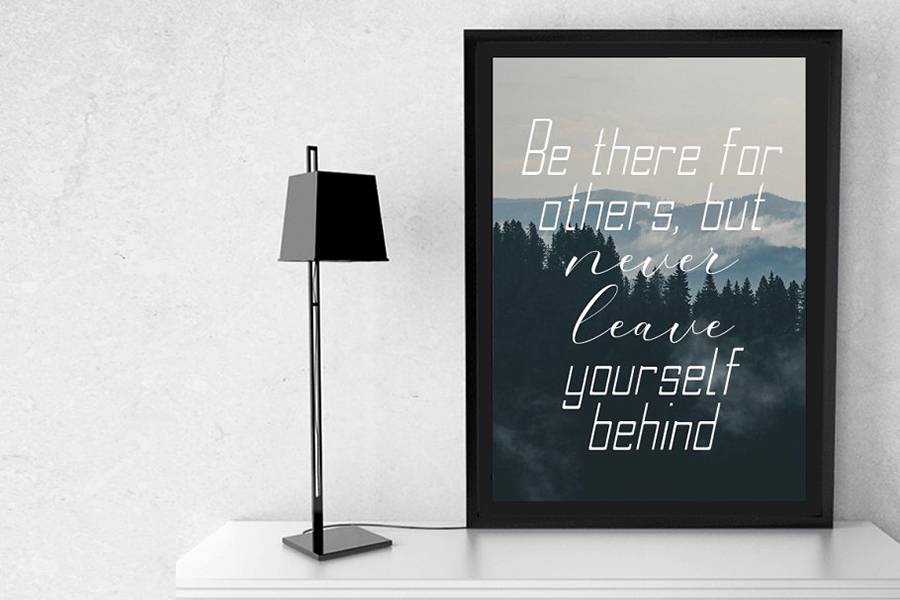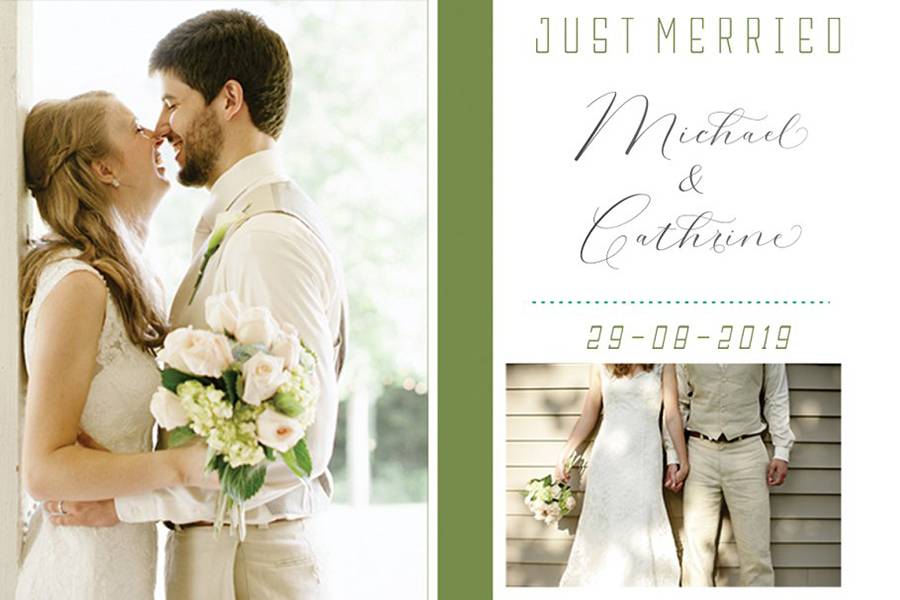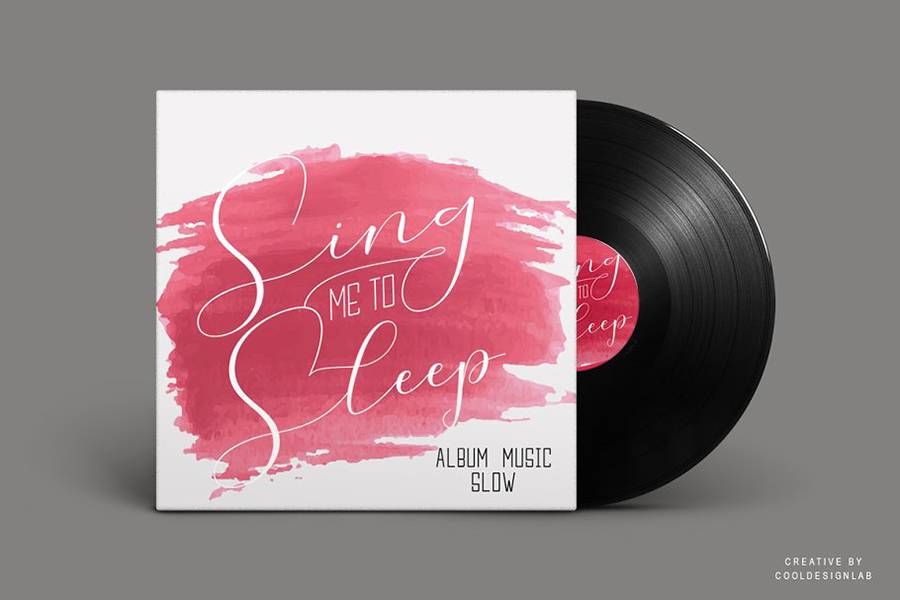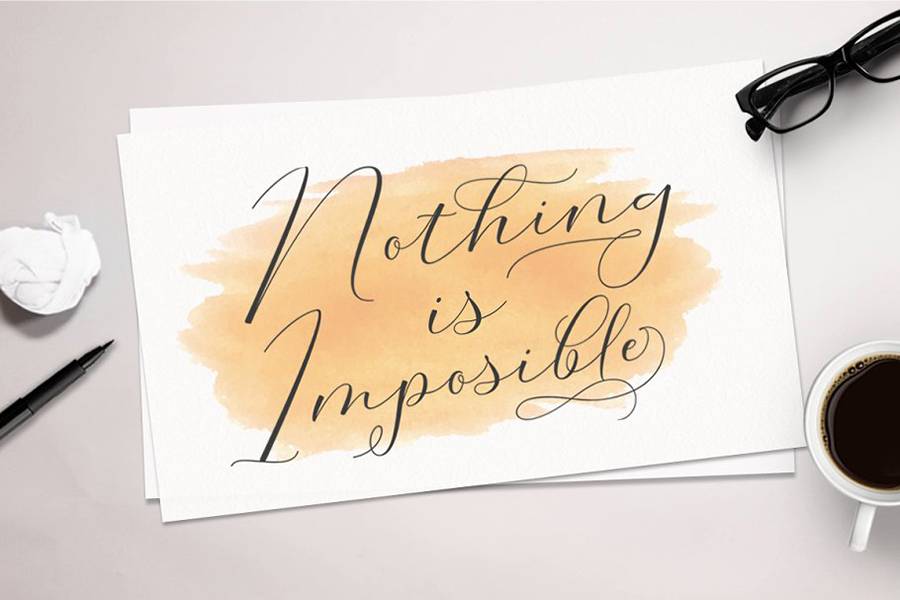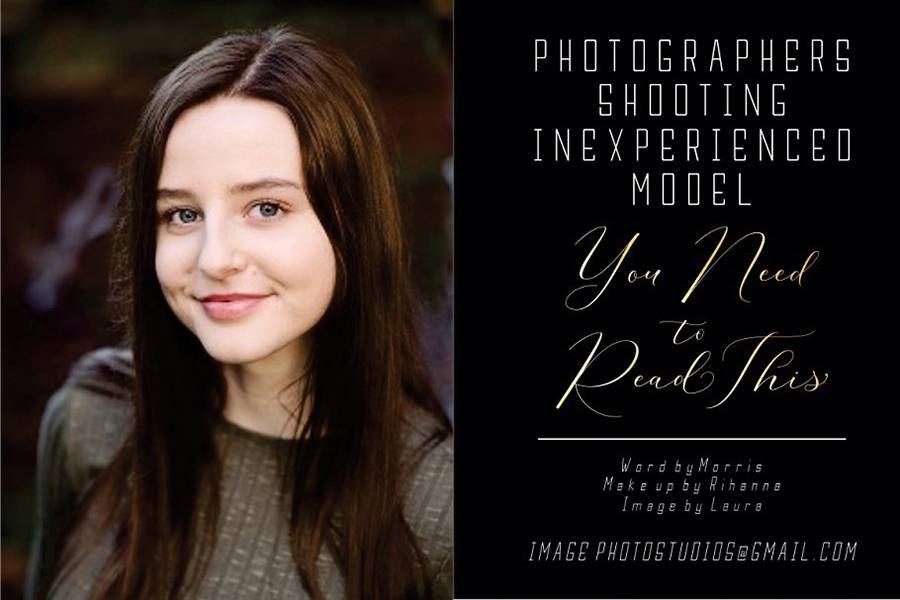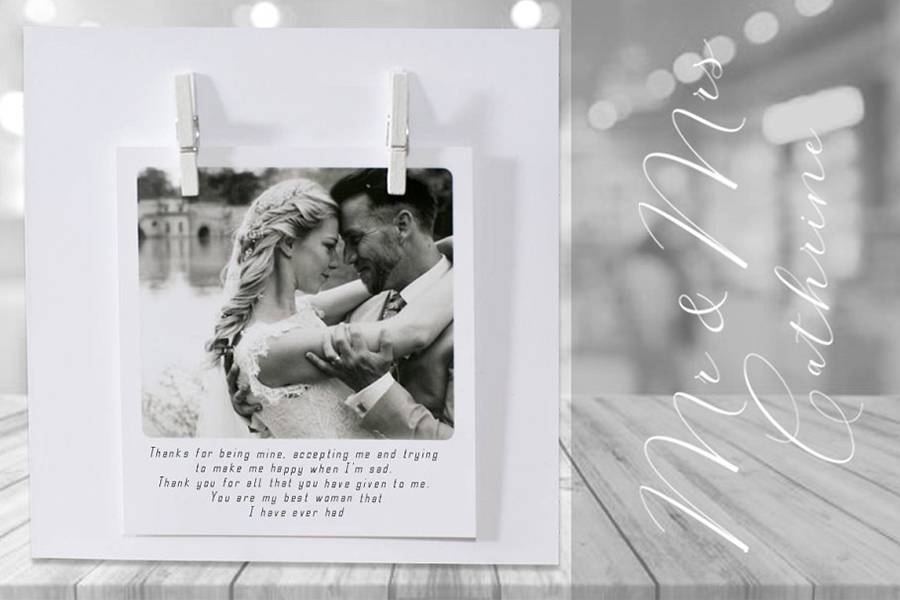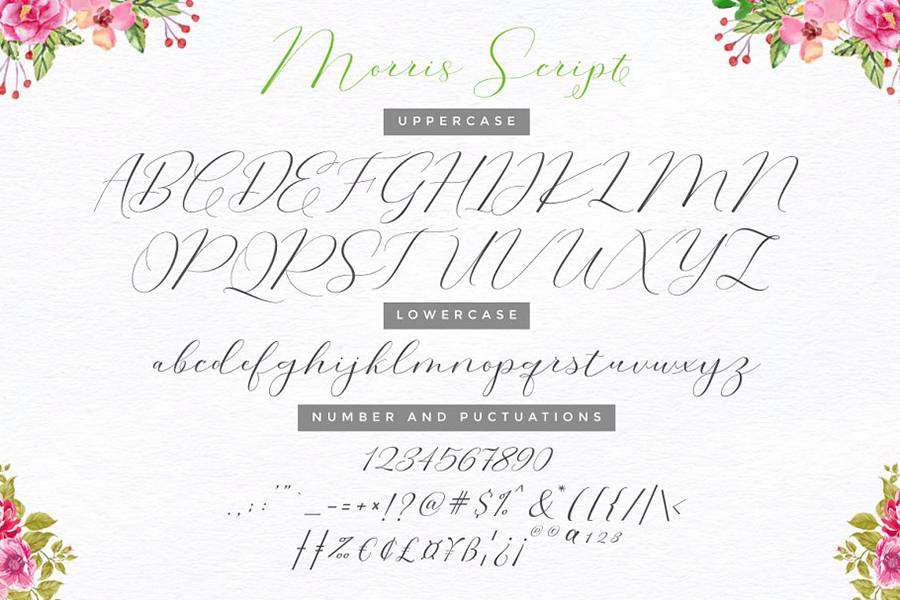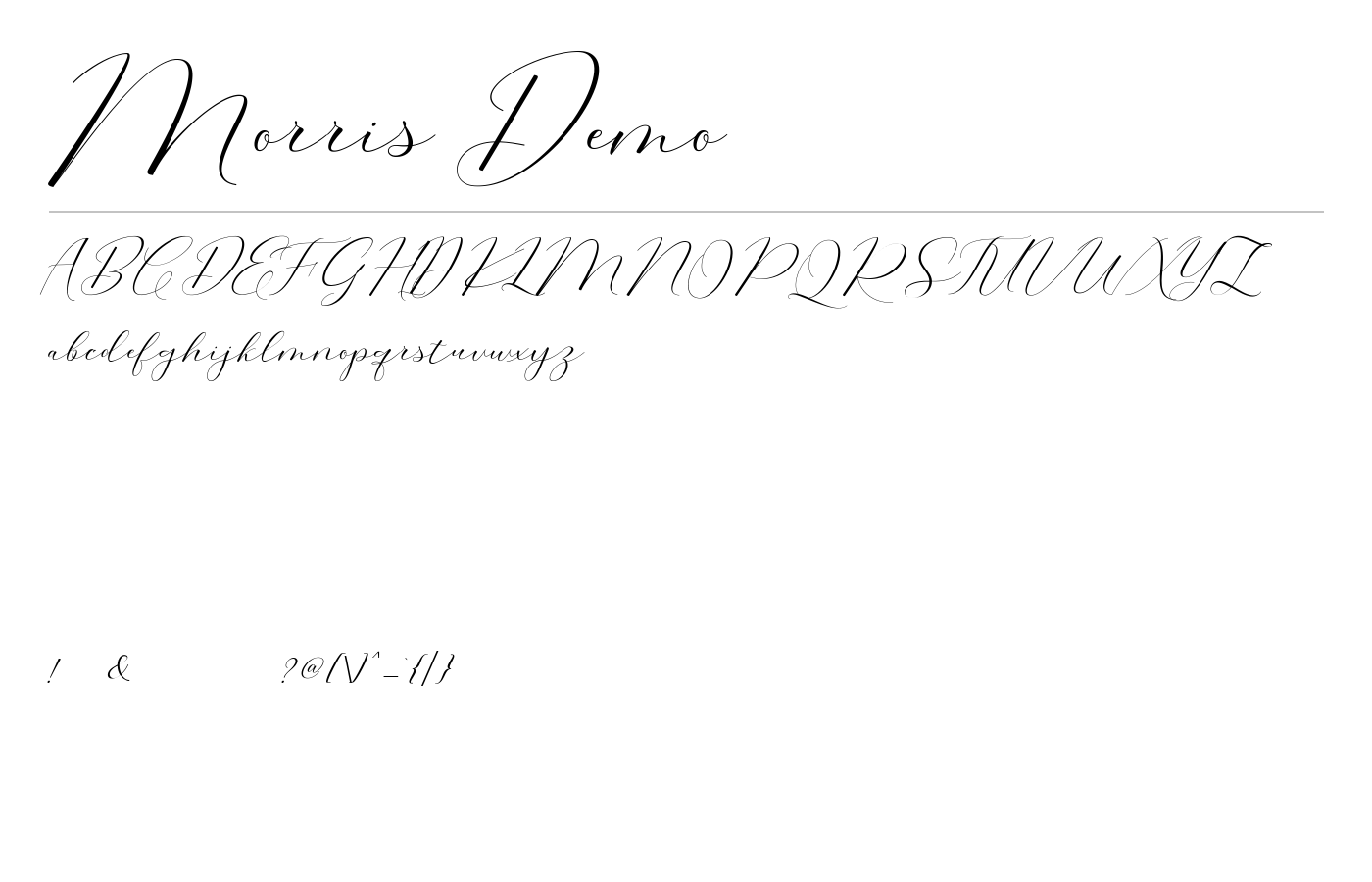
Morris Signature Script Font is an elegant and delicate script typeface characterized by its thin, flowing strokes and refined calligraphic style. With its high-contrast lines and graceful, cursive letterforms, it conveys a sophisticated and personal touch, making it ideal for luxury branding, wedding invitations, and elegant logos. Its handwritten feel adds warmth and charm, perfect for projects aiming to evoke class and refinement.
Morris Signature Script Font
About Morris Signature Script Font
| Font family | Morris Signature Script Font |
| Release date | 2019-05-02 |
| Designer | Kurniadi Saputra |